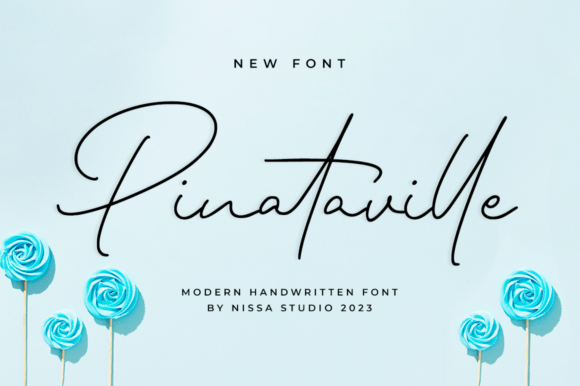
Looking for a beautiful and unique handwritten font for your next design project? Look no further than Pinataville Font by NissaStudio! This elegant script font is perfect for adding a touch of customized charm to any design, whether it's wedding invitations, thank you cards, quotes, greeting cards, logos, or business cards.
One of the standout features of Pinataville Font is its versatility. It's a great choice for a wide range of design styles, from modern and minimalistic to vintage and whimsical. And if you're looking for a font that captures the spirit of New York, Pinataville is the perfect choice. It's the font for anyone who loves the energy and style of the Big Apple.
But what really sets Pinataville apart is its gorgeous, distinct look. This font is truly one-of-a-kind, with a handwritten feel that's both elegant and approachable. It's perfect for adding a personal touch to any design, and its PUA encoding makes it easy to access all of the glyphs and swashes you need to create the perfect look.